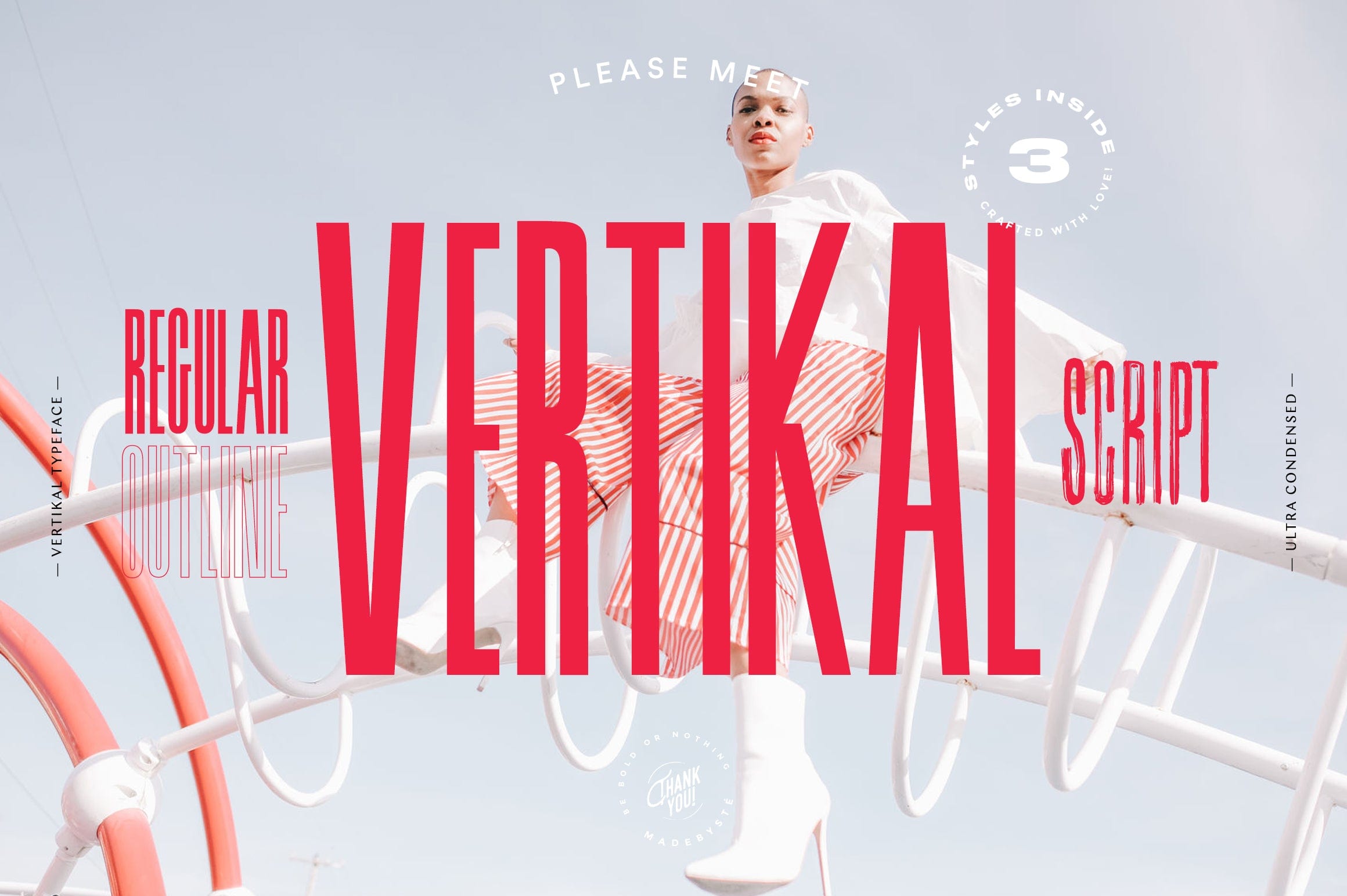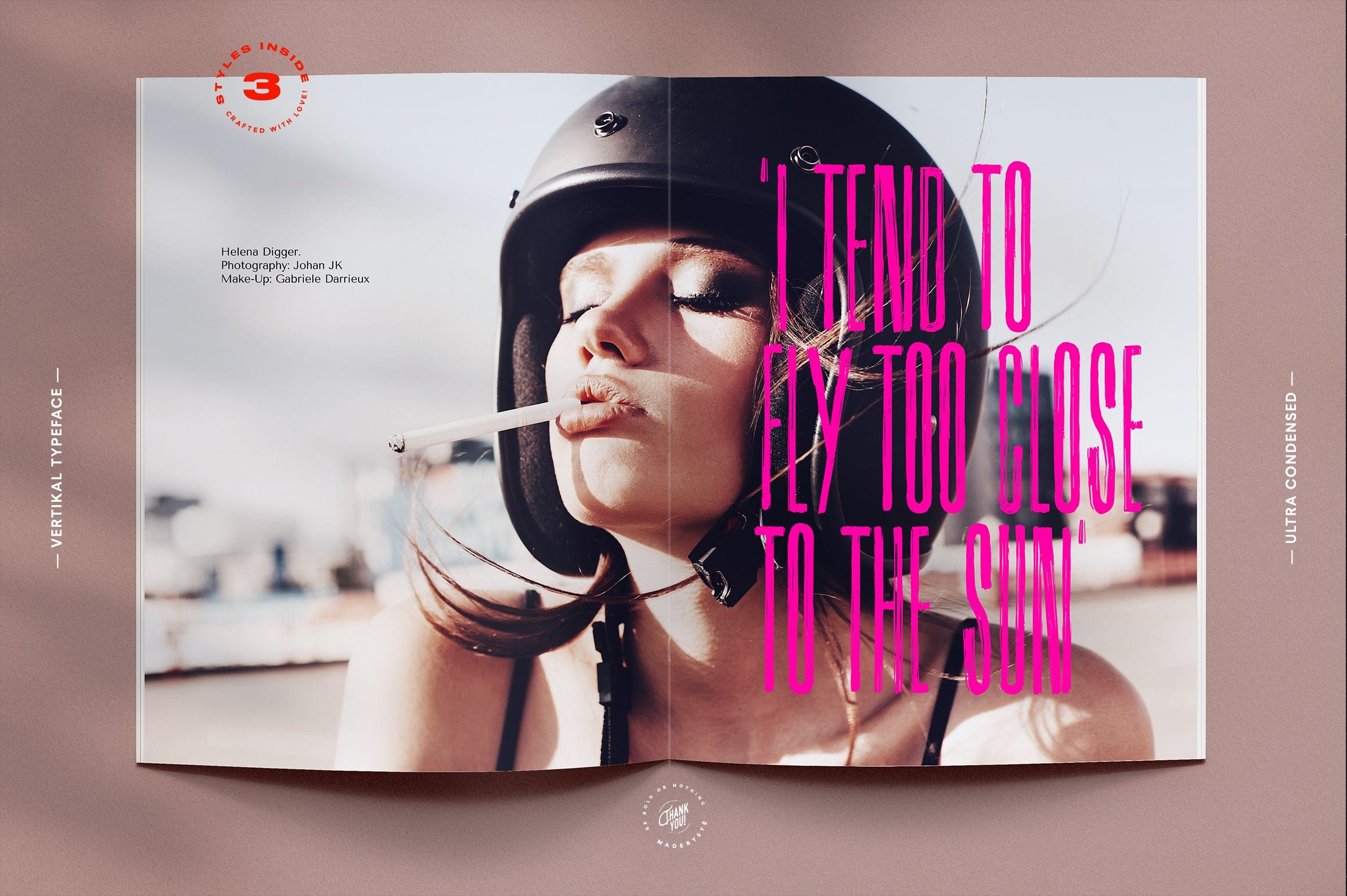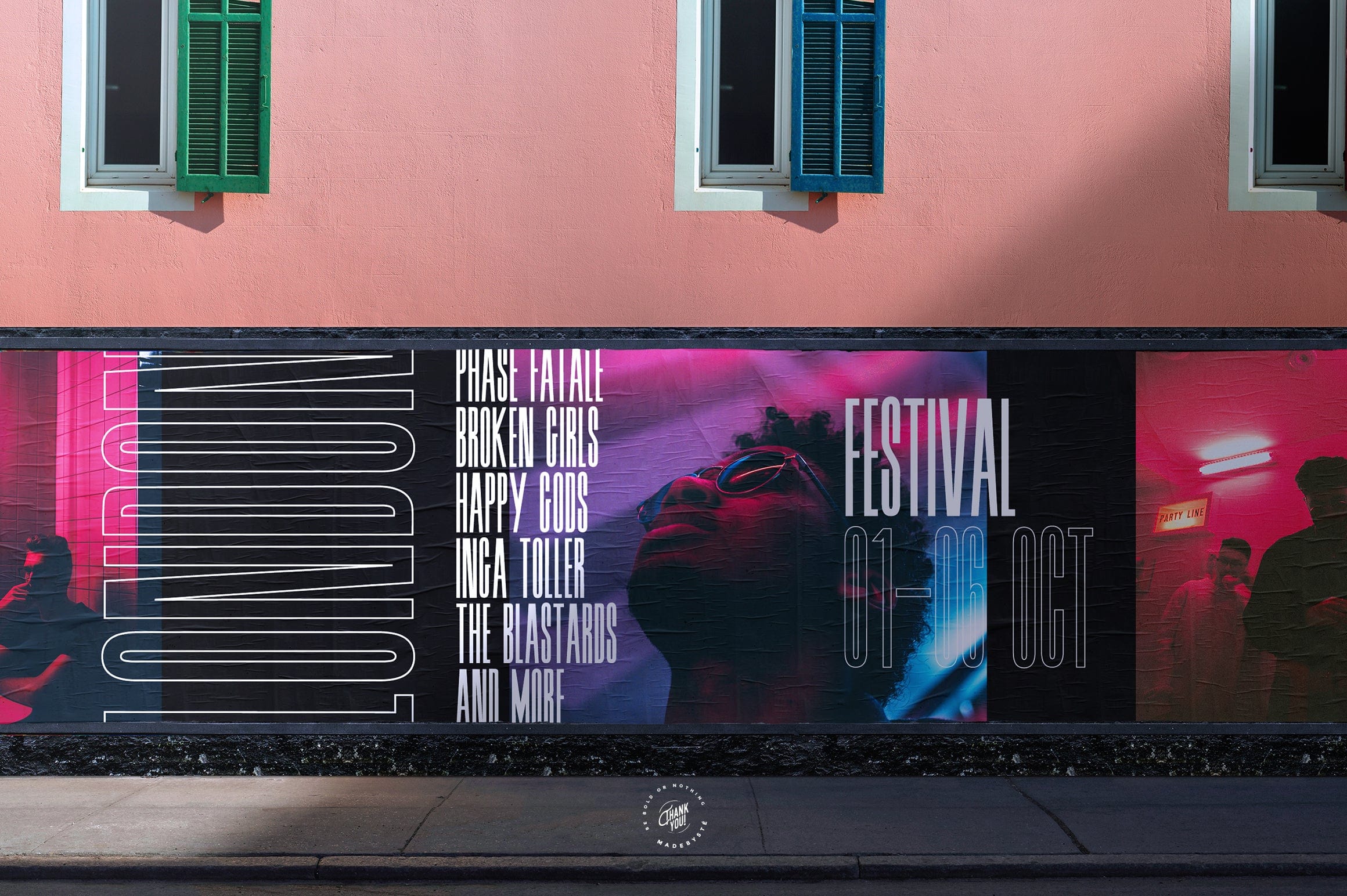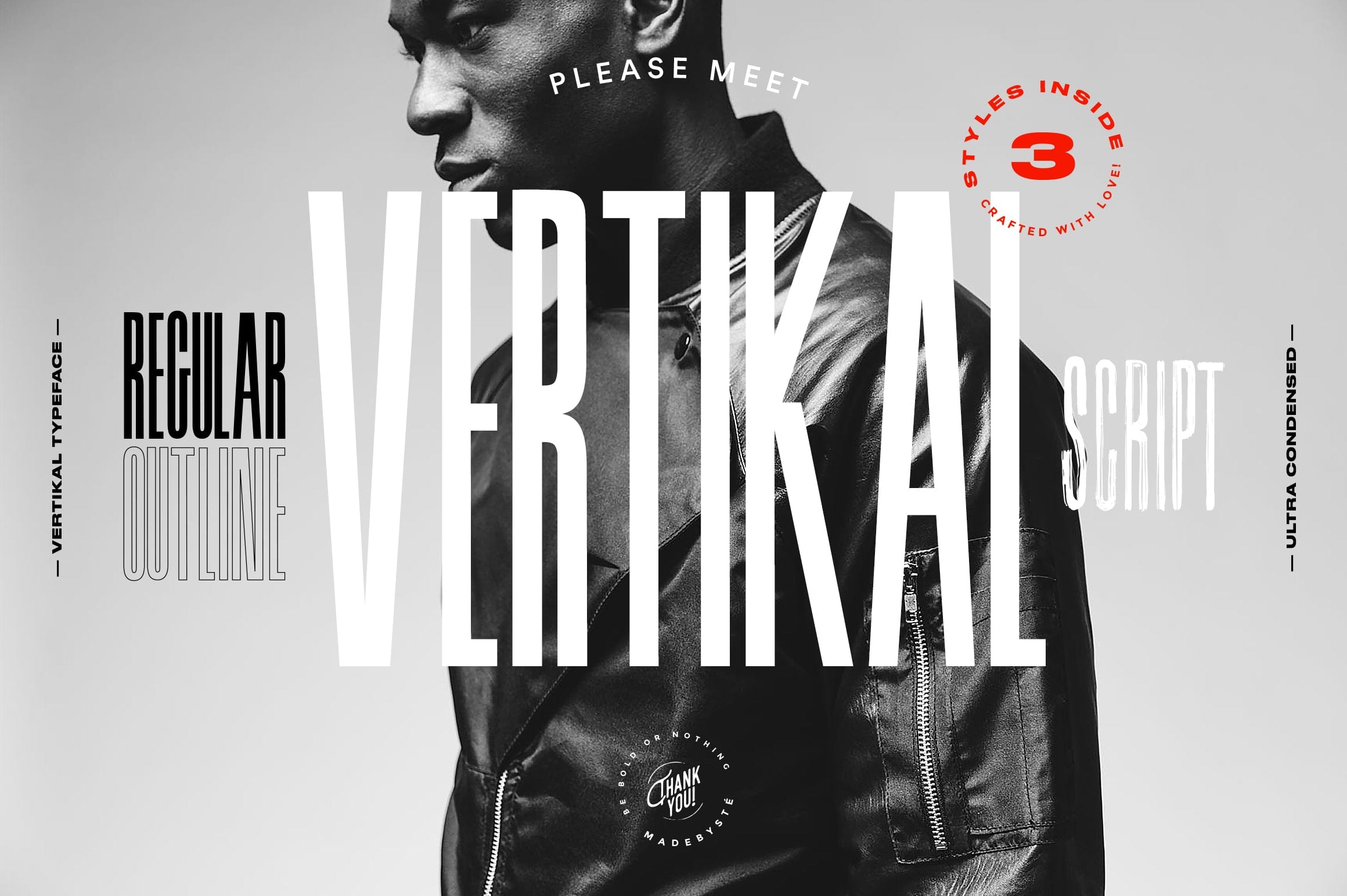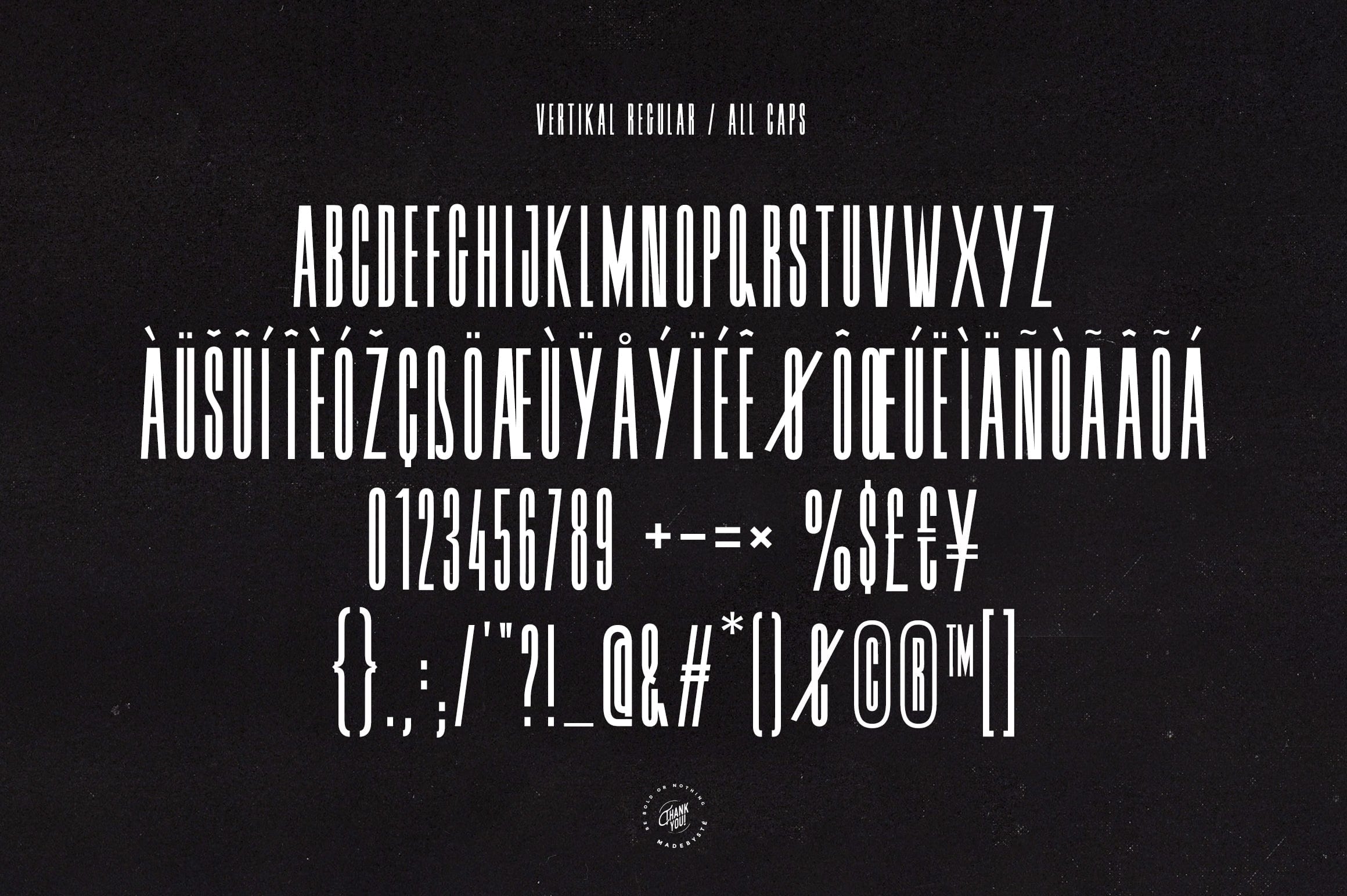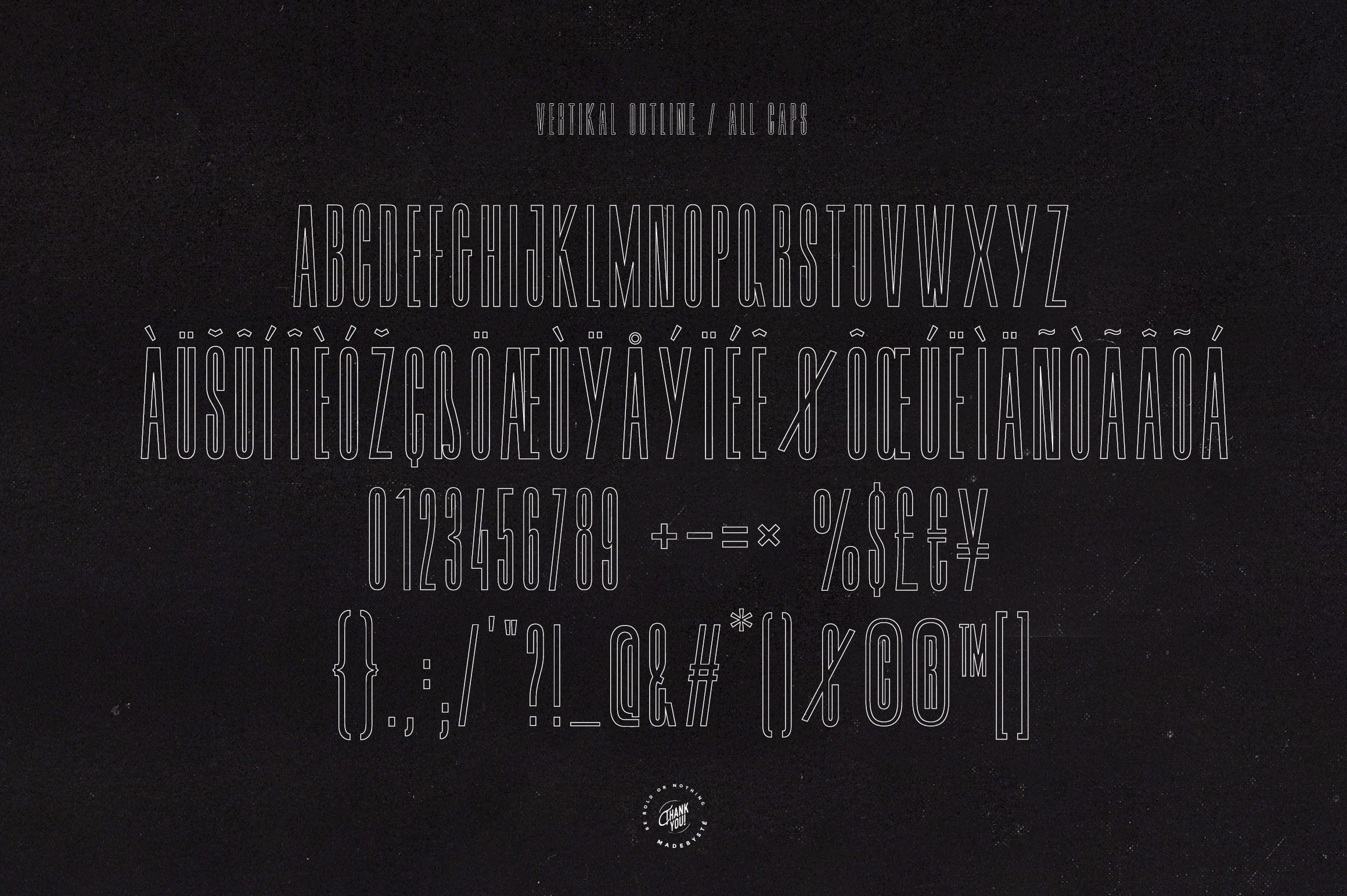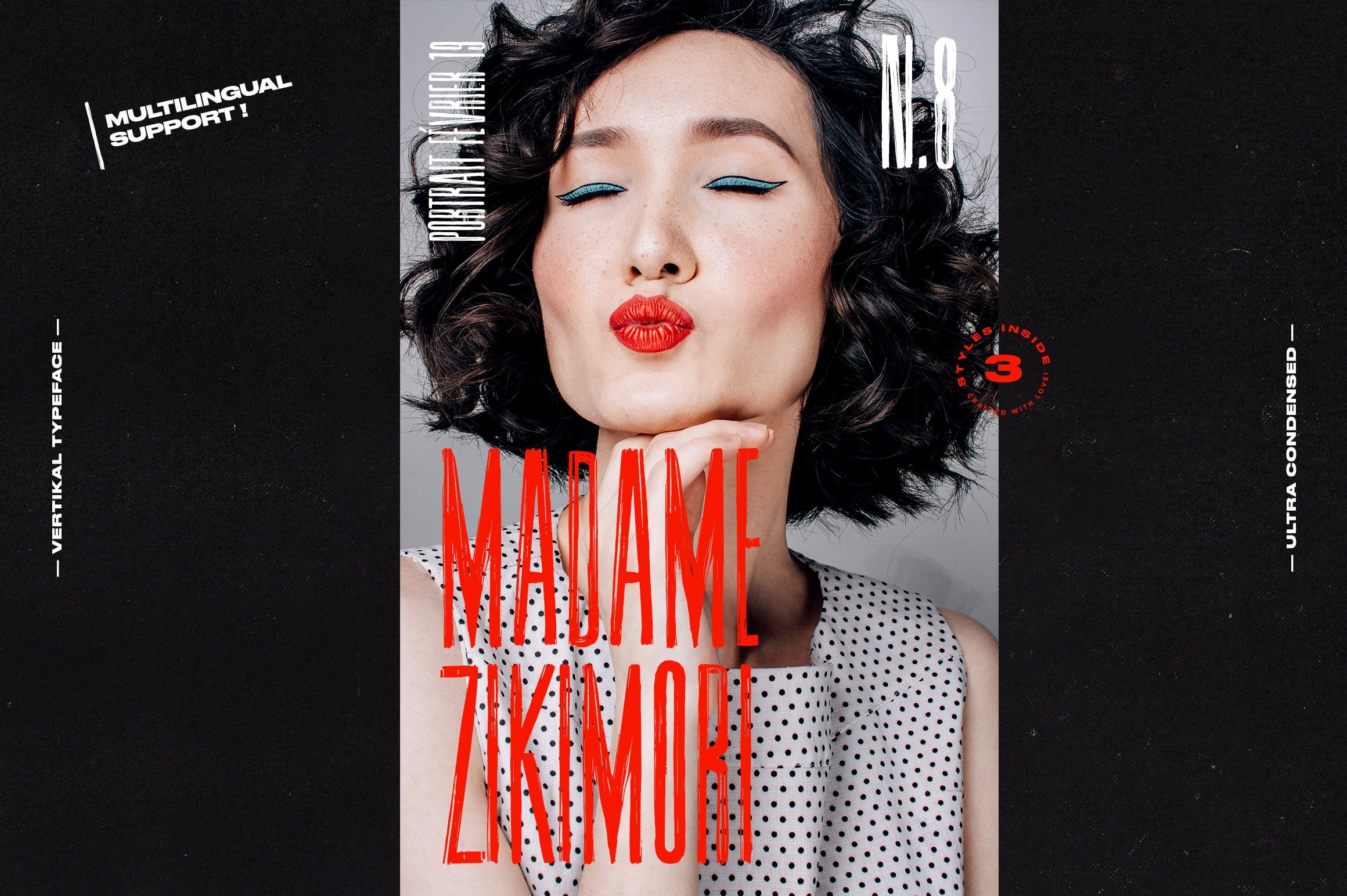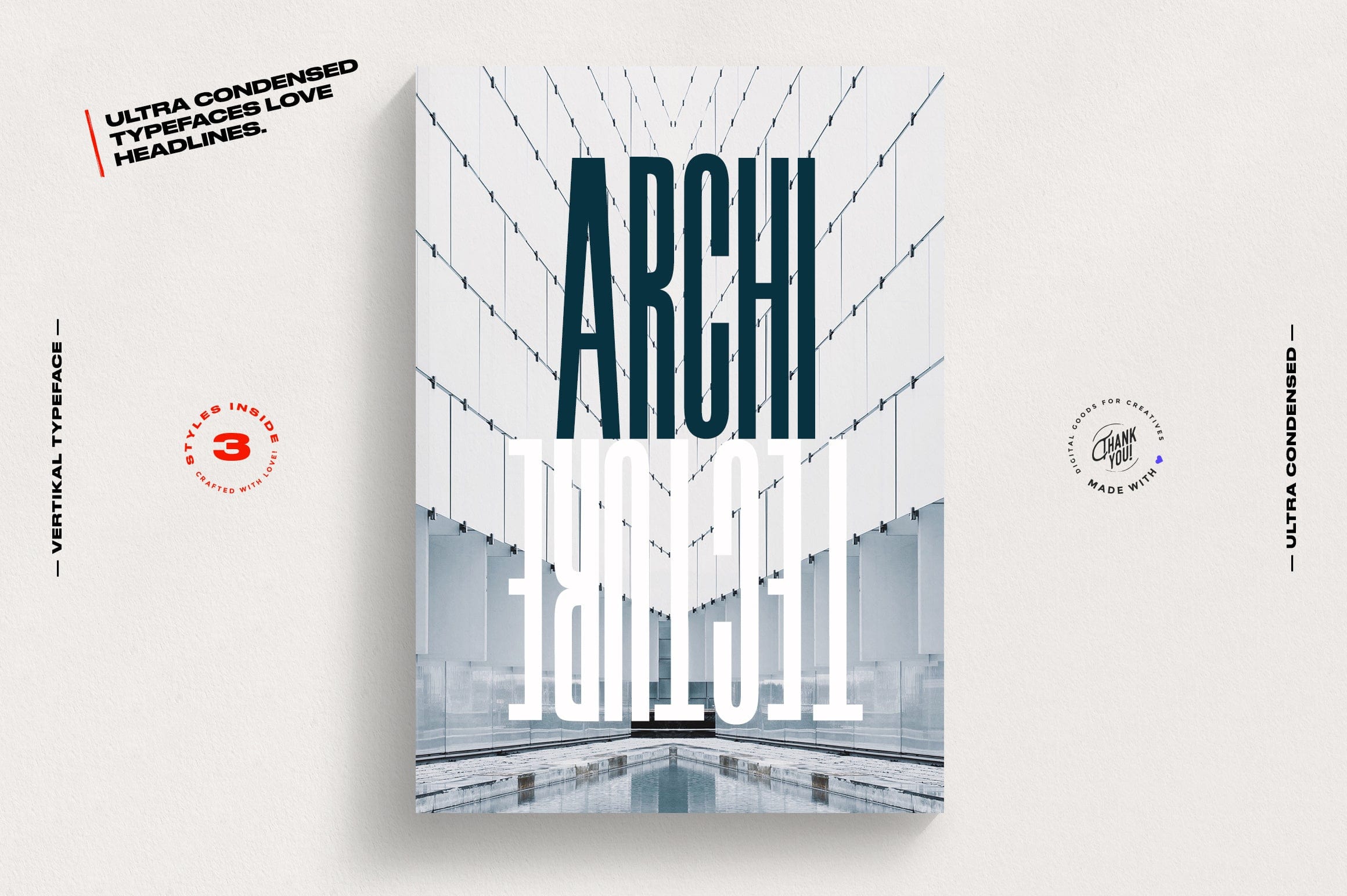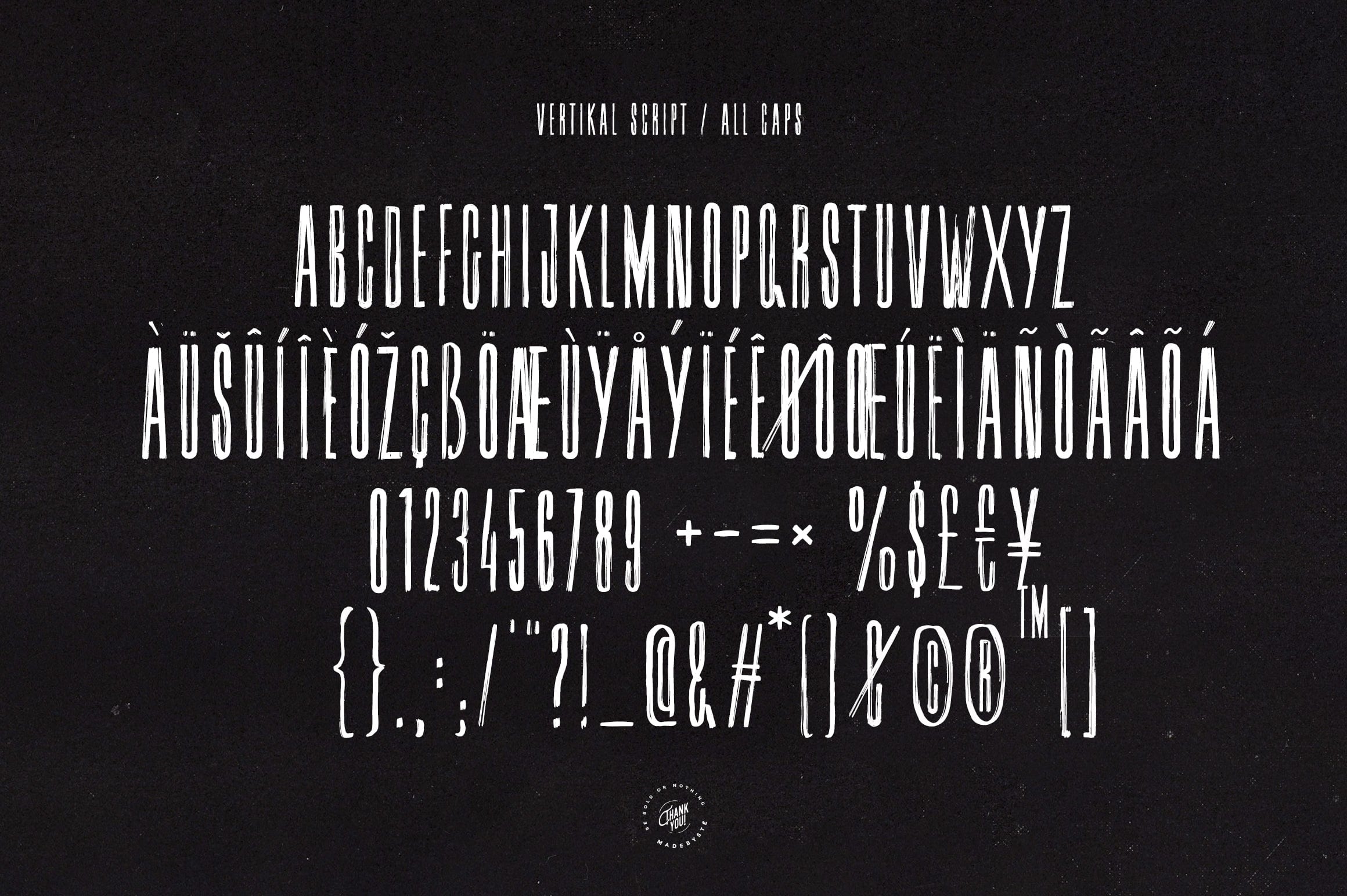
Vertikal Typeface
If you are looking for letters with attitude, Vertikal is the perfect fit. It's a memorable, strong and elegant typeface. You can mix and match the Outline and the Regular style to create something very fresh and modern. The Brush Script is the bad boy of the collection but still very classy.